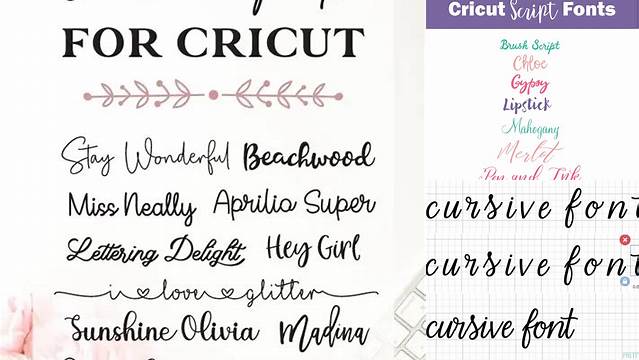
Best Free Cursive Fonts For Cricut Design Space: A Guide
Hey crafters! Are you looking to elevate your Cricut projects with some beautiful cursive fonts? Well, you're in luck! Cricut Design Space offers a fantastic selection of cursive fonts, and the best part is, many of them are absolutely free. In this article, we’re going to dive deep into the world of Cricut cursive fonts, explore the best free options available, and give you some tips on how to use them effectively in your projects. Whether you’re a seasoned Cricut pro or just getting started, this guide will help you find the perfect font to make your creations shine. So, let's get started and discover the magic of cursive fonts on Cricut Design Space!
Why Cursive Fonts? The Elegance and Versatility
Cursive fonts add a touch of elegance and personality to any project. They mimic the fluidity of handwriting, bringing a personal and sophisticated feel to your crafts. Whether you're creating personalized gifts, home décor, or event decorations, a well-chosen cursive font can make all the difference. The versatility of cursive fonts means they can be used for a wide range of projects. Think about wedding invitations, where a delicate cursive font can set a romantic tone, or personalized monograms on home décor items, adding a bespoke touch. Even simple labels and organizational projects can benefit from the stylish flair of cursive, making everyday items feel more special. For special occasions like birthdays, anniversaries, and holidays, cursive fonts can elevate your cards, banners, and gift tags, making them stand out. In the realm of home décor, imagine using a graceful cursive font to create inspirational wall quotes or personalized signs that reflect your unique style. The possibilities are truly endless. Furthermore, cursive fonts are perfect for adding a personal touch to handmade gifts. Imagine creating a custom mug with a loved one's name in a beautiful script, or a personalized tote bag with an inspiring quote. These thoughtful touches make your gifts more meaningful and memorable. The art of combining different fonts is another area where cursive shines. Pairing a bold sans-serif font with a flowing cursive script can create a striking contrast, drawing attention to key elements in your design. This technique is especially effective for creating logos, branding materials, and eye-catching signage. Whether you're a professional designer or a hobbyist, mastering the use of cursive fonts can significantly enhance your creative output. The key is to experiment, explore different styles, and find the perfect font that complements your project's overall aesthetic. By understanding the nuances of cursive typography, you can create designs that are not only visually appealing but also emotionally resonant, leaving a lasting impression on anyone who sees them. So, embrace the elegance and versatility of cursive fonts, and let your creativity flow!
Top Free Cursive Fonts on Cricut Design Space
When it comes to free cursive fonts on Cricut Design Space, there are some real gems waiting to be discovered. Let’s take a look at some of the top options that can add that perfect touch of elegance and style to your projects. Cricut Design Space has a wide variety of free cursive fonts, each with its unique charm and style. Some of the most popular options include fonts that mimic traditional calligraphy, fonts with a modern and sleek feel, and even playful scripts that are perfect for children's projects. The key is to explore the library and find the fonts that resonate with your personal taste and the specific needs of your project. One standout is the 'Babette' font, a classic script that exudes sophistication and is perfect for wedding invitations or elegant home décor. Its graceful curves and delicate strokes make it a timeless choice for any project where you want to convey a sense of refinement. Another excellent free option is 'Adorn Garland', which features a whimsical and slightly playful design. This font is ideal for creating cheerful banners, greeting cards, or personalized gifts. Its lively character adds a touch of fun to your creations, making them stand out with a unique charm. For a more contemporary look, consider 'Samantha Script'. This font offers a modern twist on traditional cursive, with clean lines and a stylish flair. It’s a versatile choice that works well for a variety of projects, from branding materials to social media graphics. Its sleek design ensures readability while still maintaining an elegant appeal. The 'Hugs and Kisses' font is another popular free cursive option, known for its sweet and friendly appearance. It’s perfect for projects aimed at children or for adding a touch of warmth to your designs. Think of using it for birthday cards, nursery décor, or personalized children's books. To make the most of these free fonts, it’s helpful to experiment with different sizes, colors, and kerning adjustments. Kerning, which is the spacing between letters, can significantly impact the readability and visual appeal of your text. Cricut Design Space allows you to adjust kerning easily, ensuring that your cursive text flows smoothly and looks professionally crafted. Additionally, consider combining cursive fonts with other font styles to create visual contrast and interest. Pairing a bold sans-serif font with a delicate cursive script, for instance, can highlight key words or phrases and add a dynamic element to your design. By taking the time to explore the free cursive fonts available on Cricut Design Space and experimenting with different techniques, you can elevate your projects and create stunning designs that truly stand out. So, dive in, have fun, and let your creativity shine!
Babette: A Classic Script
Babette is a classic script font that exudes elegance and sophistication. This timeless font is a favorite among Cricut users for its graceful curves and delicate strokes. When you're aiming for a touch of refinement, Babette is an excellent choice. This makes it ideal for creating wedding invitations, formal event announcements, or elegant home décor pieces. Its timeless appeal ensures that your projects will have a polished and professional look. The versatility of Babette extends to various projects, from personalized stationery to custom monograms. Imagine using Babette to create beautiful place cards for a dinner party or to add a personal touch to a journal cover. The font’s delicate nature makes it particularly well-suited for projects that require a subtle yet sophisticated touch. In the world of wedding stationery, Babette shines as a top choice for invitations, save-the-dates, and thank you cards. Its graceful script conveys a sense of romance and formality, setting the perfect tone for your special day. You can also use Babette to create elegant signage for your wedding venue, adding a cohesive and polished look to your event. Beyond wedding applications, Babette is also perfect for creating sophisticated home décor items. Think about using it to design personalized wall art, elegant throw pillows, or custom labels for your pantry. The font's classic style blends seamlessly with various décor themes, from traditional to modern. One of the key advantages of Babette is its readability. Despite its elegant script, the font remains easy to read, ensuring that your message is conveyed clearly. This makes it a practical choice for projects where clarity is essential, such as invitations or signage. When working with Babette in Cricut Design Space, experiment with different sizes and colors to achieve the desired effect. A larger font size can make a bold statement, while a smaller size can add a delicate touch. Consider using metallic colors like gold or silver to enhance the font's elegance for special occasions. To further enhance the visual appeal of your projects, try pairing Babette with a simple sans-serif font. This combination creates a balanced and visually appealing design, with the sans-serif font providing a clean and modern contrast to Babette's flowing script. By mastering the use of Babette, you can add a touch of timeless elegance to your Cricut projects. Its classic script and versatile nature make it a valuable addition to your font library, allowing you to create stunning designs for any occasion. So, embrace the sophistication of Babette and let it elevate your crafting endeavors!
Adorn Garland: Whimsical and Playful
If you’re looking for a whimsical and playful cursive font, Adorn Garland is an excellent choice. This font brings a lighthearted touch to your projects, making it perfect for creating cheerful banners, greeting cards, or personalized gifts. Adorn Garland’s unique character adds a touch of fun to your creations, ensuring they stand out with a charming and lively appeal. Its playful nature makes it especially well-suited for projects that celebrate joy and creativity. Think of using Adorn Garland for birthday cards, baby shower decorations, or even for adding a whimsical touch to your social media graphics. The font's cheerful design is sure to bring a smile to anyone's face. One of the key features of Adorn Garland is its decorative flourishes. The font includes playful swirls and embellishments that add to its whimsical character. These decorative elements make it easy to create eye-catching designs without the need for additional embellishments. The font’s playful details can be used to create fun borders, headers, or to highlight key words in your text. Adorn Garland is particularly effective for children's projects. Its friendly and approachable style makes it an ideal choice for creating personalized children's books, nursery décor, or playful invitations for kids' parties. Imagine using Adorn Garland to create a colorful banner for a child's bedroom or to personalize a set of thank you notes for a kids' birthday party. The font's whimsical nature will resonate with children and adults alike. When working with Adorn Garland, consider using vibrant colors to enhance its playful character. Bright shades of pink, blue, yellow, and green can amplify the font’s cheerful appeal. Experiment with different color combinations to create a design that truly pops. You can also use Adorn Garland in conjunction with other playful design elements, such as illustrations, stickers, or patterned paper. This font is also versatile enough to be used for more informal adult projects. Think about using Adorn Garland to create personalized tote bags, fun t-shirts, or even to add a playful touch to your planner or journal. Its whimsical nature can add a touch of personality to everyday items, making them feel more special. To make the most of Adorn Garland, consider experimenting with different font sizes and spacing. A larger font size can make a bold statement, while a smaller size can add a delicate touch. Adjusting the spacing between letters can also impact the font’s readability and visual appeal. In Cricut Design Space, you can easily adjust the kerning to ensure that your text flows smoothly and looks professionally crafted. By incorporating Adorn Garland into your projects, you can add a touch of whimsy and playfulness that is sure to delight. Its unique character and decorative flourishes make it a valuable addition to your font library, allowing you to create fun and engaging designs for any occasion. So, embrace the playful nature of Adorn Garland and let it bring a touch of joy to your crafting endeavors!
Samantha Script: Modern Elegance
For those seeking a modern elegance in their cursive fonts, Samantha Script is an outstanding choice available on Cricut Design Space. This font offers a contemporary twist on traditional cursive, featuring clean lines and a stylish flair that makes it incredibly versatile. Whether you're working on branding materials, social media graphics, or personalized gifts, Samantha Script provides a sleek and sophisticated touch. Its modern appeal makes it a go-to option for projects that require a refined yet approachable aesthetic. The clean lines of Samantha Script ensure readability while maintaining an elegant appearance. This balance is crucial for designs where clarity is as important as style, such as logos, business cards, and website headers. The font’s sleek design conveys a sense of professionalism and sophistication, making it an excellent choice for branding projects. In the realm of social media, Samantha Script can elevate your graphics and posts, adding a touch of elegance that sets your content apart. Think about using it for creating eye-catching quotes, promotional materials, or announcements. The font’s modern style is well-suited to digital platforms, ensuring that your message is conveyed effectively and stylishly. Beyond digital applications, Samantha Script is also perfect for personalized gifts and stationery. Imagine creating custom mugs, tote bags, or notebooks with a loved one's name or a special message in this elegant script. The font’s sophisticated touch adds a personal and memorable element to your gifts. When it comes to wedding stationery, Samantha Script offers a contemporary alternative to traditional cursive fonts. Its clean lines and stylish flair make it an excellent choice for invitations, save-the-dates, and thank you cards. The font’s modern elegance can set the tone for a chic and sophisticated wedding. One of the key advantages of Samantha Script is its adaptability. It pairs well with a variety of other fonts, allowing you to create dynamic and visually appealing designs. Consider pairing Samantha Script with a bold sans-serif font to create a striking contrast that highlights key words or phrases. This combination can add a modern and professional touch to your projects. When working with Samantha Script in Cricut Design Space, experiment with different sizes and colors to achieve the desired effect. A larger font size can make a bold statement, while a smaller size can add a subtle touch of elegance. Consider using metallic colors or elegant shades like navy or gray to enhance the font’s sophistication. To further enhance the visual appeal of your designs, pay attention to kerning and spacing. Adjusting the spacing between letters can significantly impact the readability and overall look of your text. Cricut Design Space provides easy-to-use tools for adjusting kerning, ensuring that your cursive text flows smoothly and looks professionally crafted. By incorporating Samantha Script into your font library, you’ll have a versatile and elegant option for a wide range of projects. Its modern appeal and clean lines make it a valuable asset for any designer or crafter looking to add a touch of sophistication to their creations. So, embrace the modern elegance of Samantha Script and let it elevate your designs to the next level!
Tips for Using Cursive Fonts in Cricut Design Space
Using cursive fonts in Cricut Design Space can significantly enhance your projects, but there are some tips and tricks to keep in mind to achieve the best results. Cursive fonts, with their flowing and connected letters, require a bit more attention to detail than standard fonts. However, with the right techniques, you can create stunning designs that showcase the beauty of cursive typography. One of the most important tips is to weld your letters together. Unlike block letters, cursive letters are designed to connect seamlessly. In Cricut Design Space, this means you’ll need to use the Weld tool to join the letters so that they cut as a single, continuous shape. If you don’t weld the letters, each letter will be cut individually, resulting in overlapping and disjointed pieces. To weld your letters, first type out your text in Cricut Design Space. Then, adjust the letter spacing (kerning) to ensure that the letters are touching but not overlapping excessively. Once you’re satisfied with the spacing, select the entire text and click the Weld button in the bottom right corner of the screen. This will combine the letters into a single shape, ready for cutting. Another crucial tip is to consider the material you’re using. Cursive fonts, especially those with delicate lines and intricate details, can be challenging to cut on certain materials. For best results, use smooth and sturdy materials like cardstock, vinyl, or iron-on. Avoid materials that are too thin or flimsy, as they may tear or buckle during the cutting process. When working with vinyl, it’s essential to use a sharp blade and a clean cutting mat to ensure a smooth and precise cut. For intricate cursive fonts, consider slowing down the cutting speed and increasing the blade pressure slightly. This can help the Cricut machine navigate the delicate curves and details of the font without tearing the material. Additionally, remember to mirror your image when cutting iron-on vinyl. This will ensure that your design is oriented correctly when you iron it onto your fabric. Choosing the right font size is also crucial for readability and visual appeal. Cursive fonts can become difficult to read if they are too small, especially those with intricate details. Experiment with different font sizes to find the perfect balance between legibility and aesthetics. For projects like wall decals or banners, a larger font size may be necessary to ensure that the text is visible from a distance. For smaller projects like cards or labels, a more moderate font size may be appropriate. In Cricut Design Space, you can easily adjust the font size by dragging the corner handles of the text box or by entering a specific size in the Edit panel. Finally, don’t be afraid to experiment with different font combinations. Pairing a cursive font with a simpler sans-serif font can create a visually appealing contrast that highlights key elements in your design. For example, you might use a cursive font for a heading or title and a sans-serif font for the body text. This combination can add a touch of elegance and sophistication to your projects while maintaining readability. By following these tips, you can make the most of cursive fonts in Cricut Design Space and create stunning projects that showcase your creativity. So, dive in, experiment, and let the beauty of cursive typography elevate your crafting endeavors!
Conclusion: Elevate Your Projects with Free Cursive Fonts
In conclusion, using free cursive fonts from Cricut Design Space is a fantastic way to elevate your projects and add a touch of elegance and personality. We’ve explored some of the top free cursive fonts available, discussed their unique characteristics, and shared tips on how to use them effectively. Whether you’re creating wedding invitations, personalized gifts, or home décor, the right cursive font can make all the difference. Remember, the key is to experiment with different fonts, sizes, and colors to find the perfect combination for your project. Don't hesitate to try out Babette for a classic script, Adorn Garland for a whimsical touch, or Samantha Script for modern elegance. Each font brings its own unique flair, so have fun exploring the possibilities. Welding your letters is crucial for a seamless and professional look. This simple step ensures that your cursive text flows smoothly and cuts as a single piece, avoiding any disjointed or overlapping letters. Pay attention to the materials you’re using. Cursive fonts with delicate lines and intricate details work best with smooth and sturdy materials like cardstock, vinyl, or iron-on. Adjusting your Cricut machine’s settings, such as the cutting speed and blade pressure, can also help achieve clean and precise cuts. Experimenting with font sizes is another essential tip. A font that’s too small may be difficult to read, while one that’s too large may overwhelm your design. Find the right balance by testing different sizes and considering the overall layout of your project. Finally, don’t underestimate the power of font combinations. Pairing a cursive font with a simpler font style can create a visually appealing contrast that highlights your text and adds depth to your design. By keeping these tips in mind, you can confidently incorporate cursive fonts into your Cricut projects and achieve stunning results. Cricut Design Space offers a wealth of resources and tools to help you bring your creative visions to life. From the wide selection of free fonts to the user-friendly design interface, everything you need is at your fingertips. So, go ahead and dive into the world of cursive typography, and let your imagination run wild. The elegance and versatility of cursive fonts are sure to add a special touch to your creations, making them truly stand out. Happy crafting, guys!